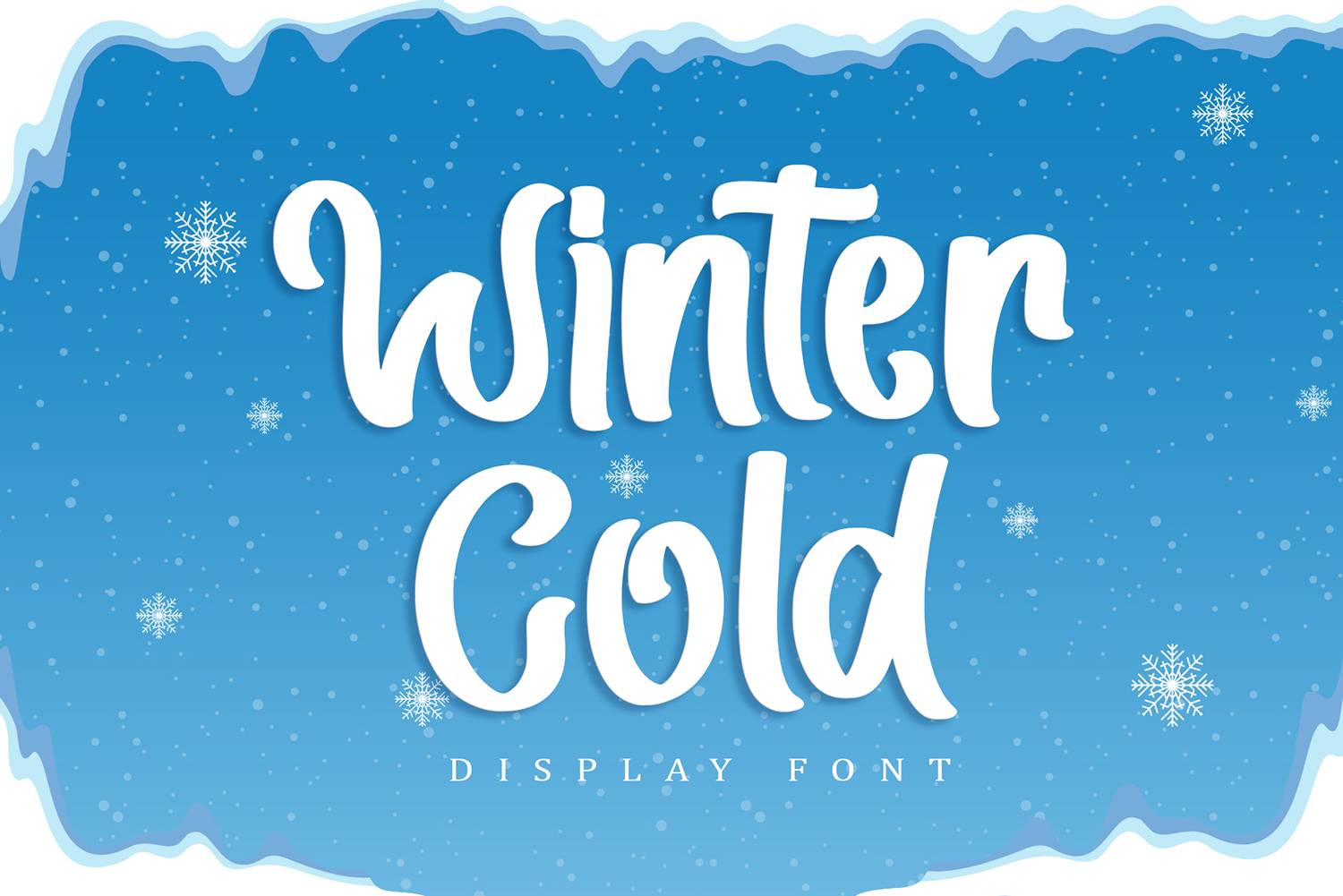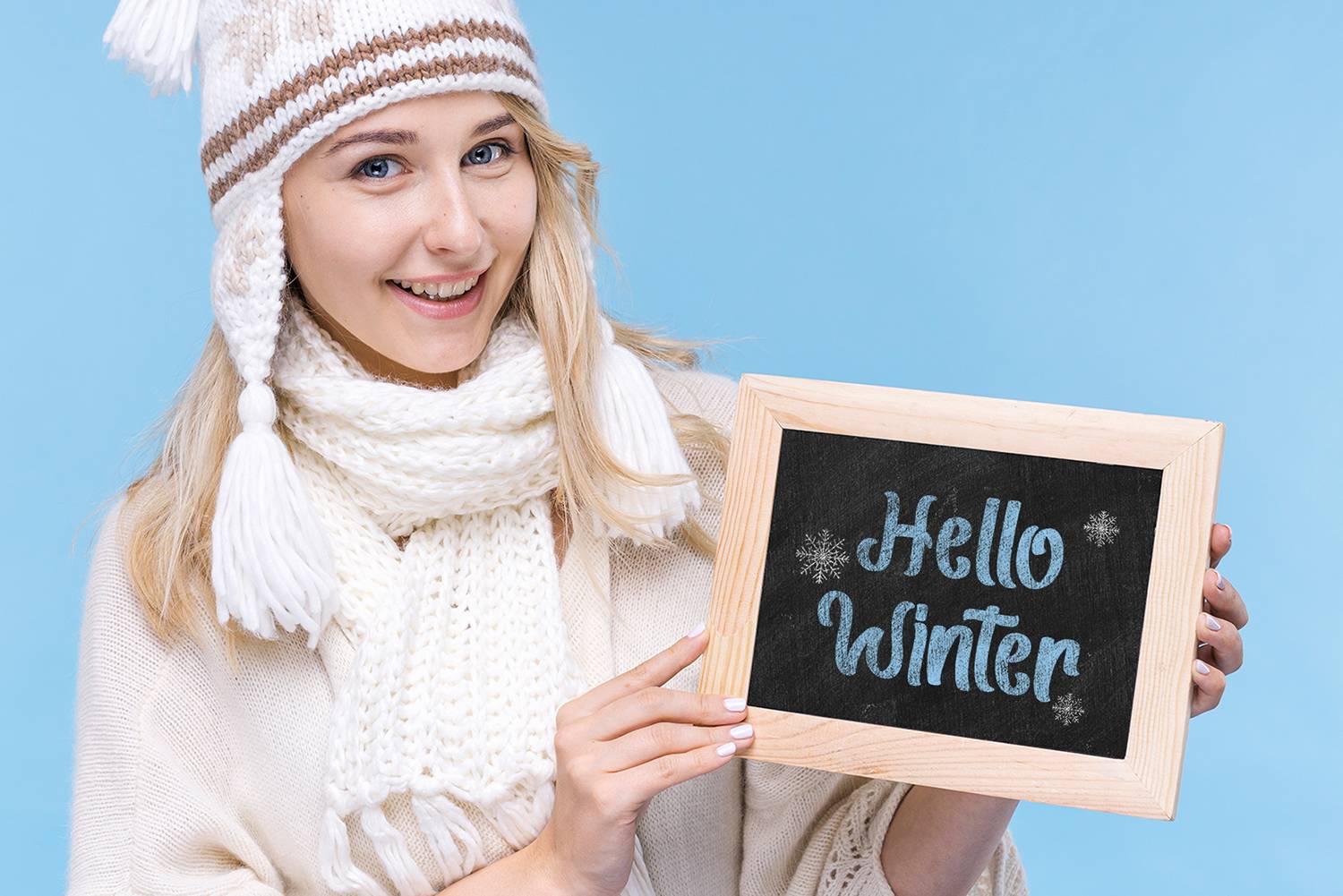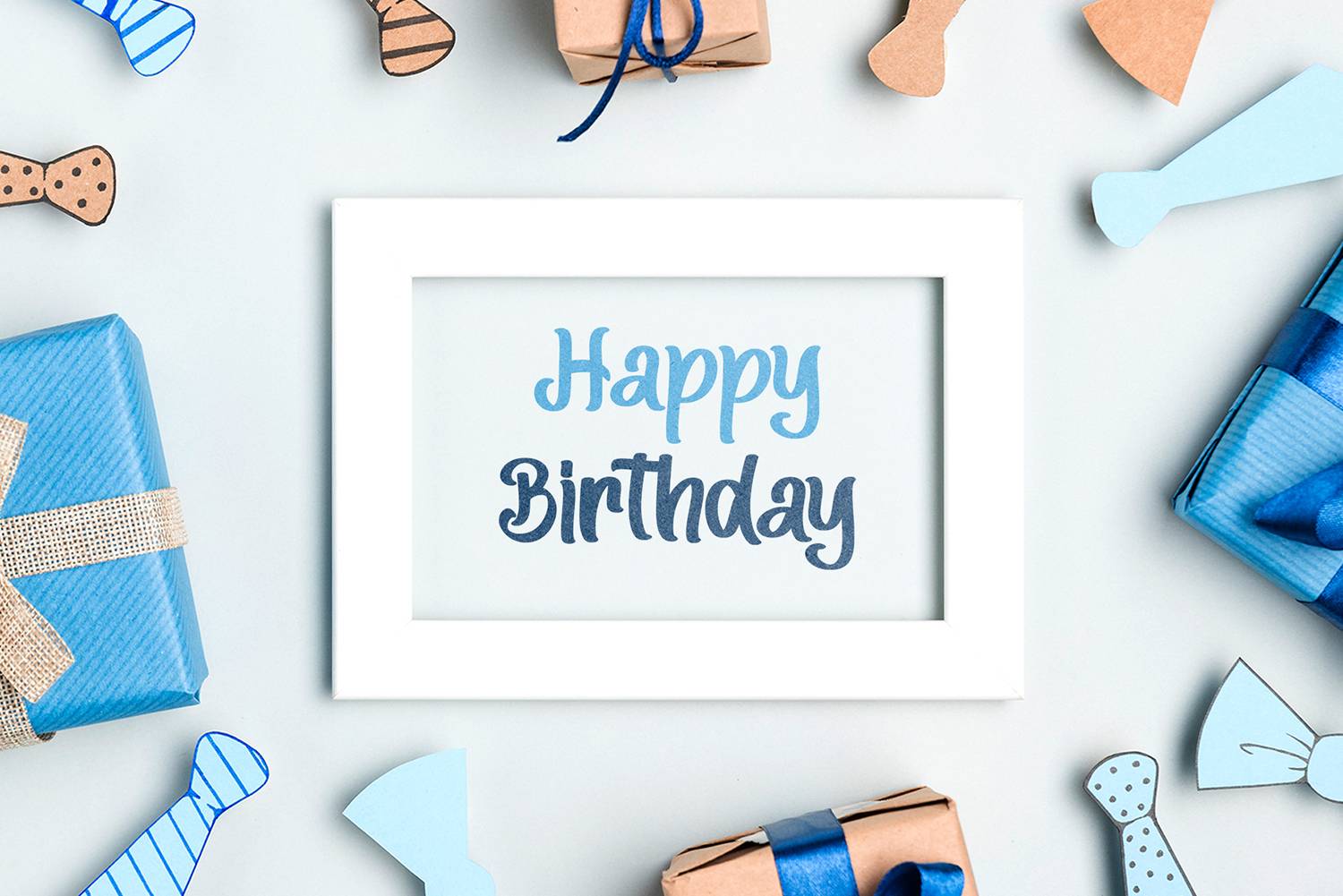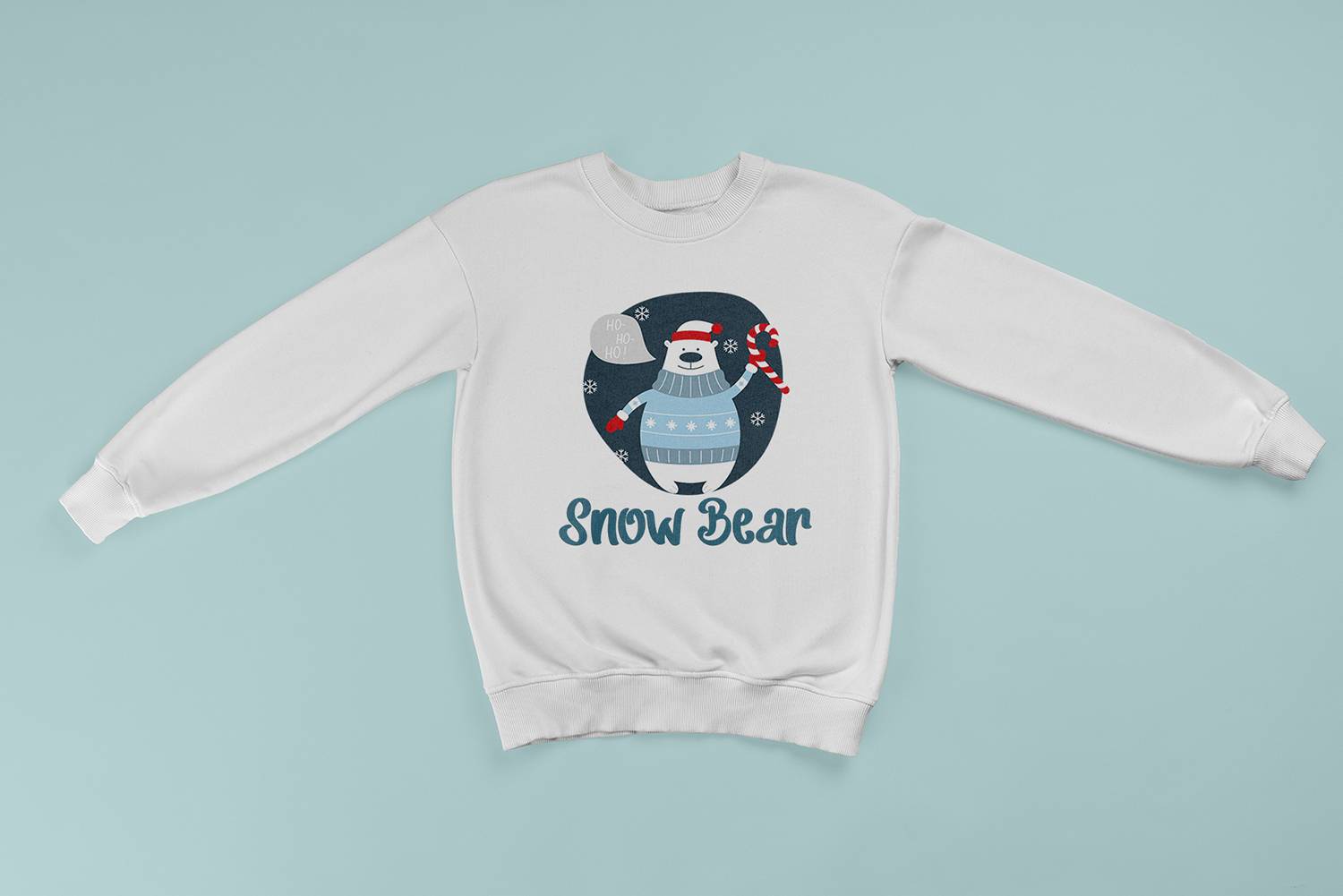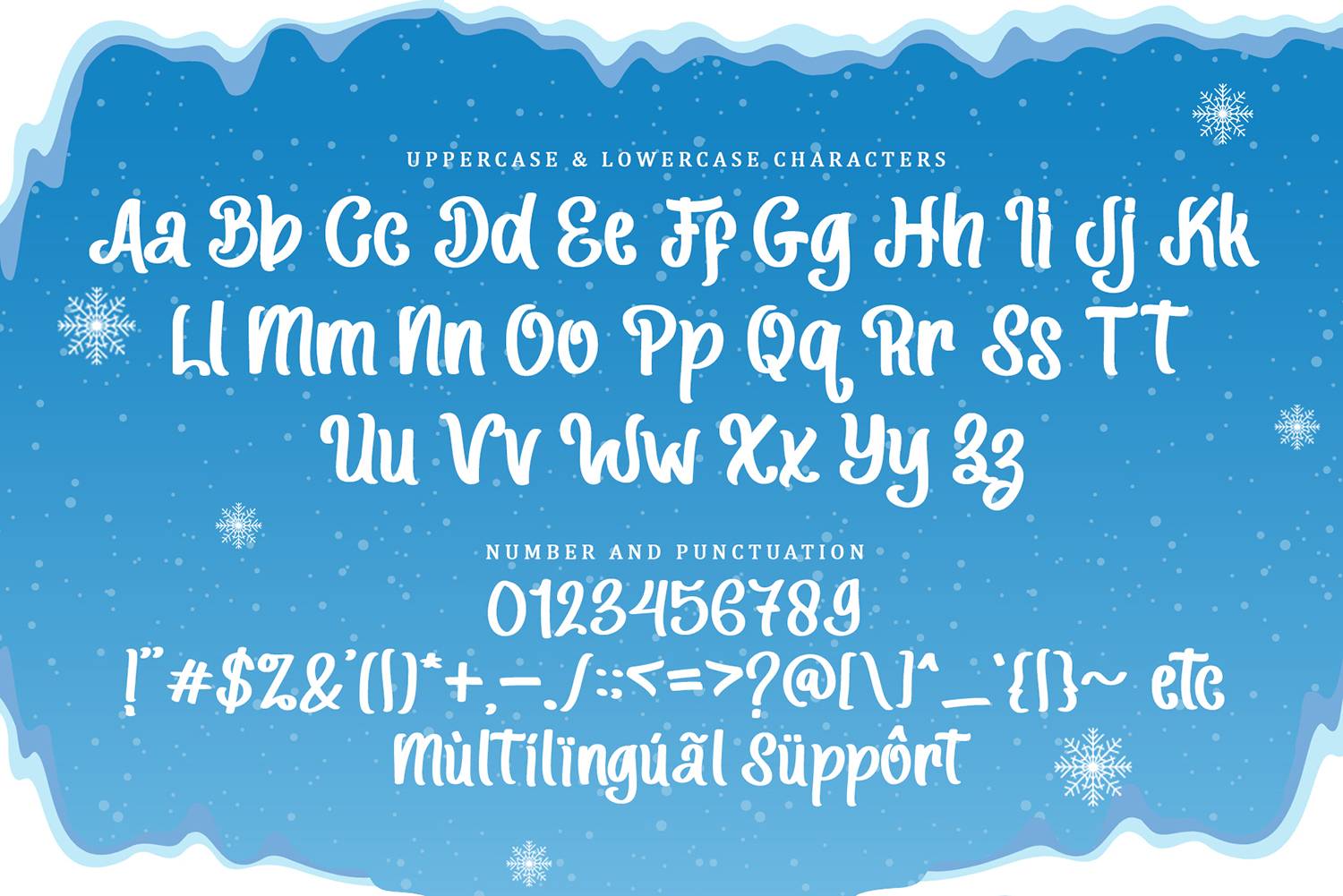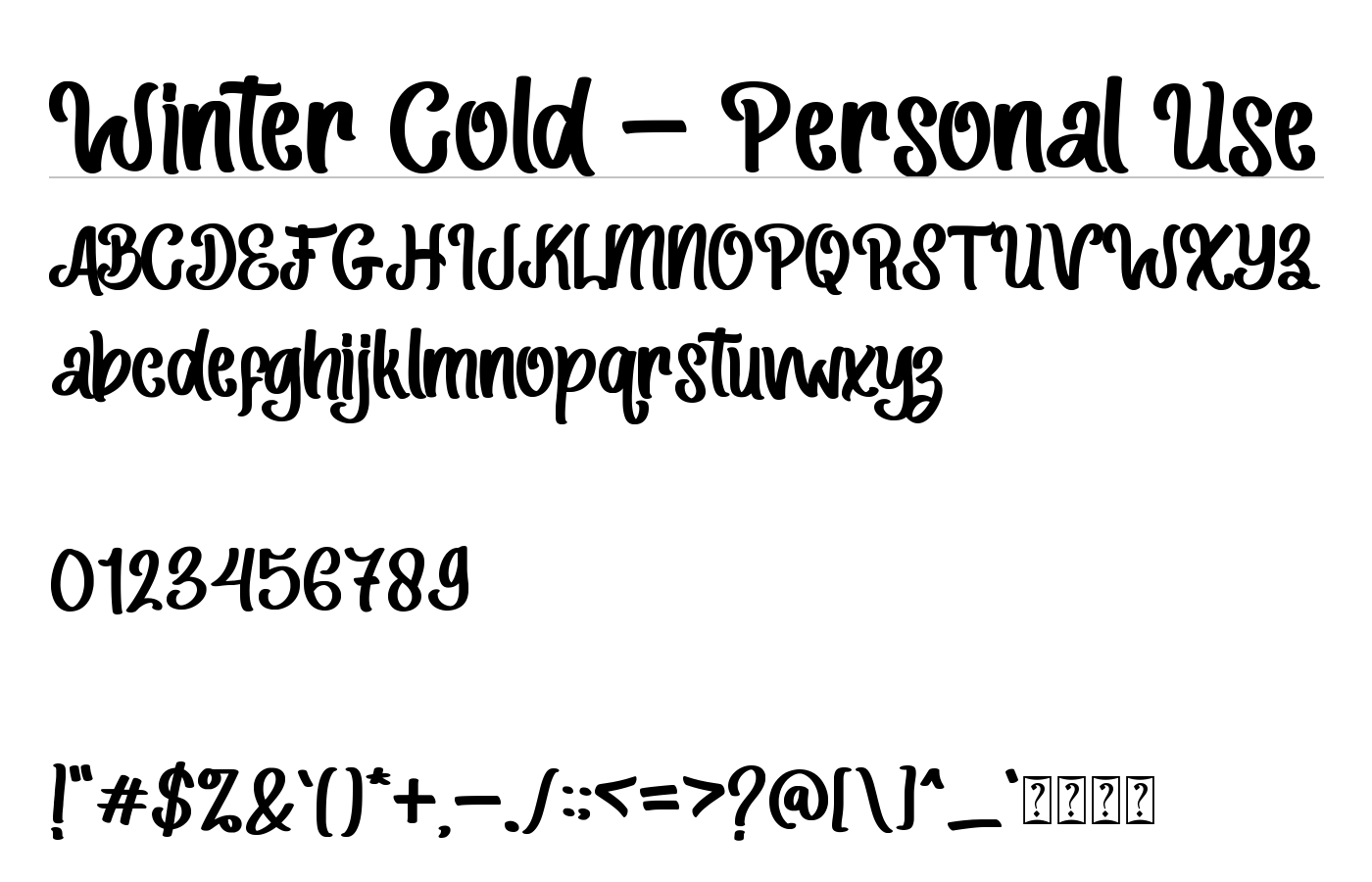
Winter Cold is a playful and friendly script font with a warm, hand-drawn feel, featuring smooth, rounded strokes and charming curls that add personality to each letter. Its medium weight and slightly condensed width make it ideal for eye-catching headlines, invitations, and creative branding that seeks a casual, approachable vibe. This font works best where a touch of whimsy and cheerfulness is desired, bringing a cozy and inviting atmosphere to designs.
Winter Cold Font
About Winter Cold Font